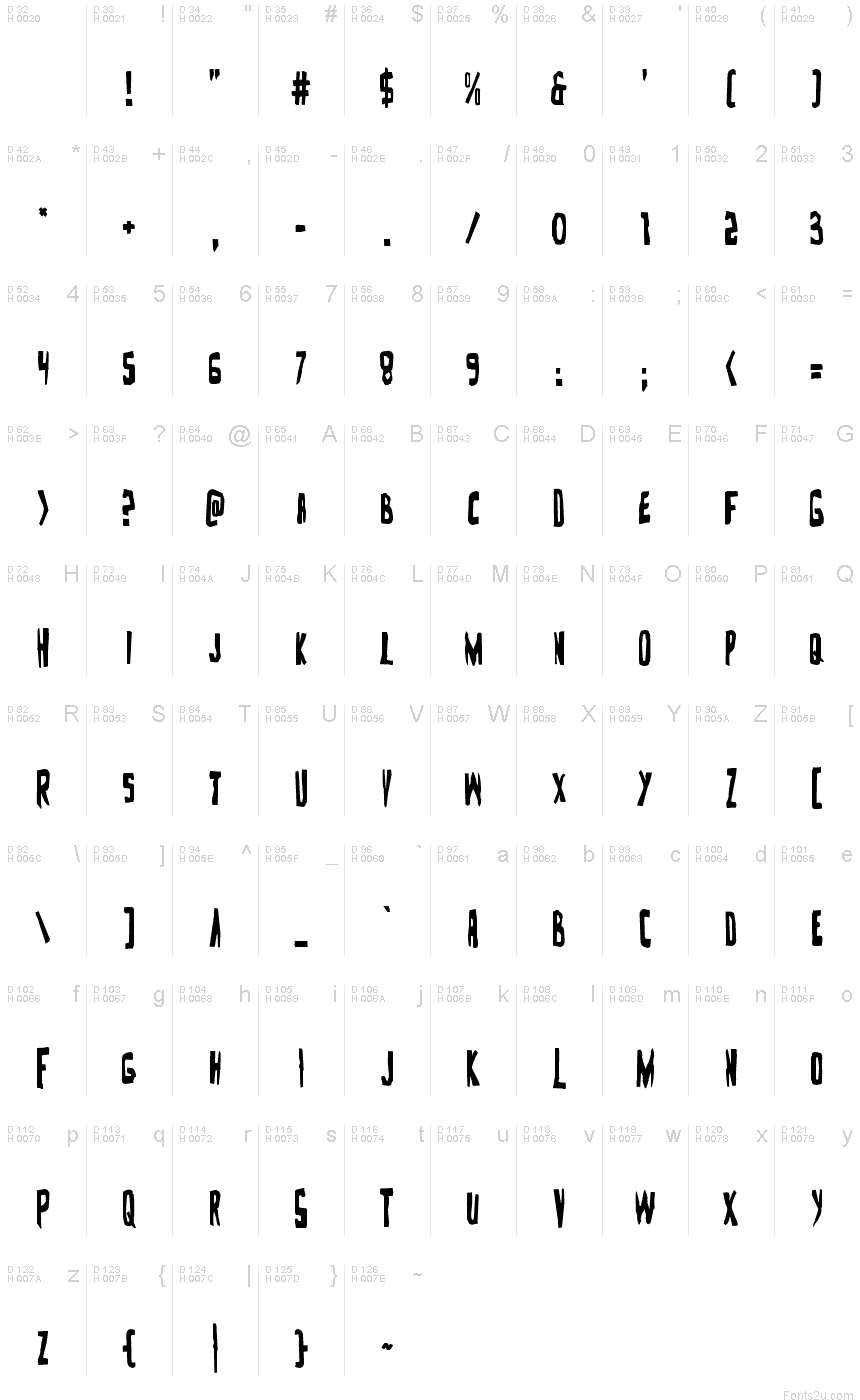
Zakenstein Condensed by Daniel Zadorozny of Iconian Fonts is a free condensed graffiti font with towering, tightly packed letters and a rough cut-paper silhouette. Stroke widths shift abruptly, and sharp notches break up the swollen black forms.
Its jagged contours can echo torn posters, stencil shapes, and distressed collage artwork in music graphics and streetwear packaging. The narrow build also suits festival posters and skate merchandise, where a long name can become a dense vertical-edged band. Horror, punk, and underground comic themes are a particularly convincing match for its warped shapes.
Zakenstein Condensed